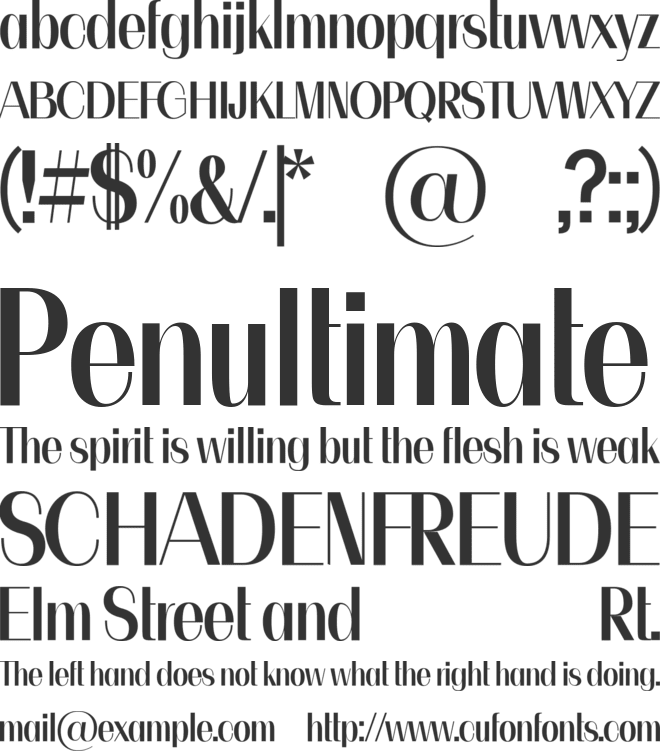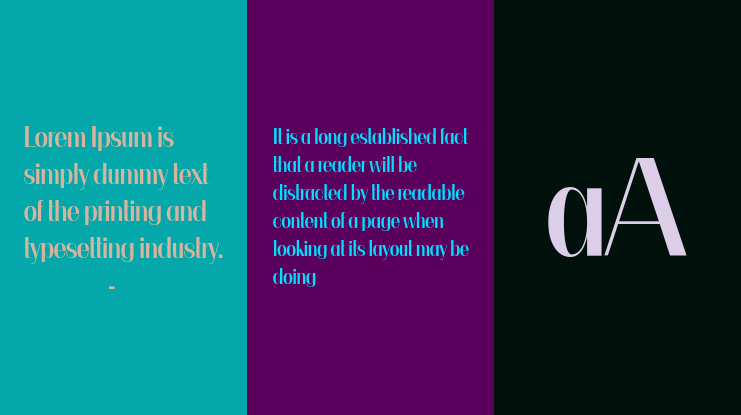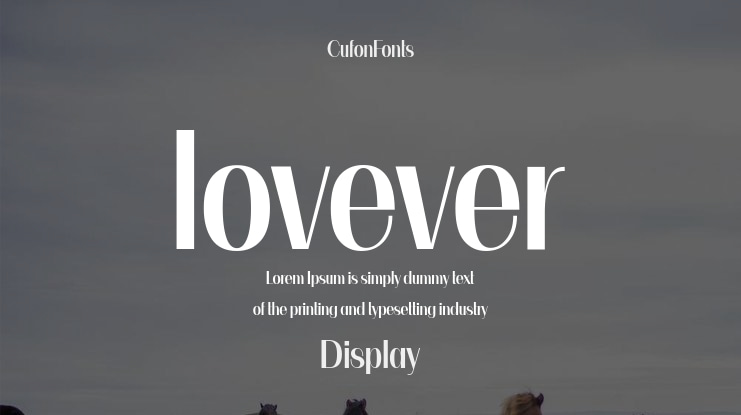
lovever Font Family
Lovever is an elegant sans serif with multilingual support—ideal for romantic branding, minimalist packaging, and editorial design.